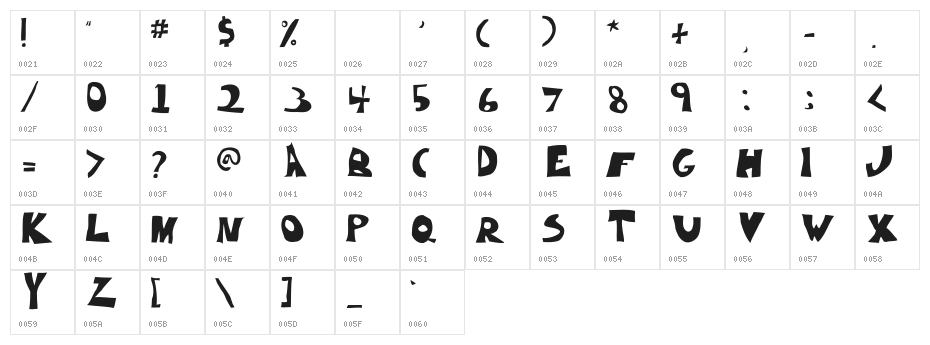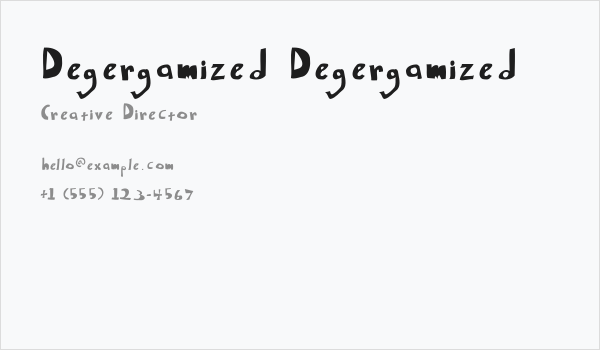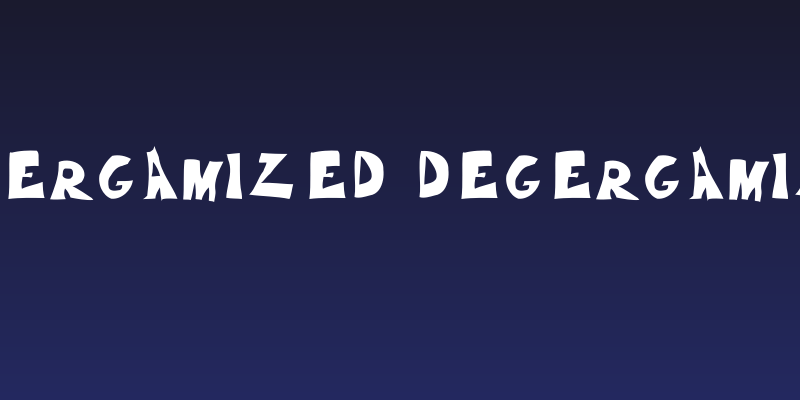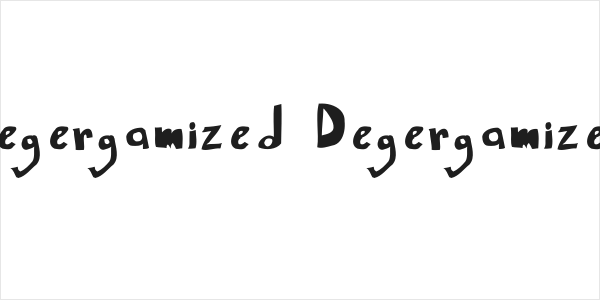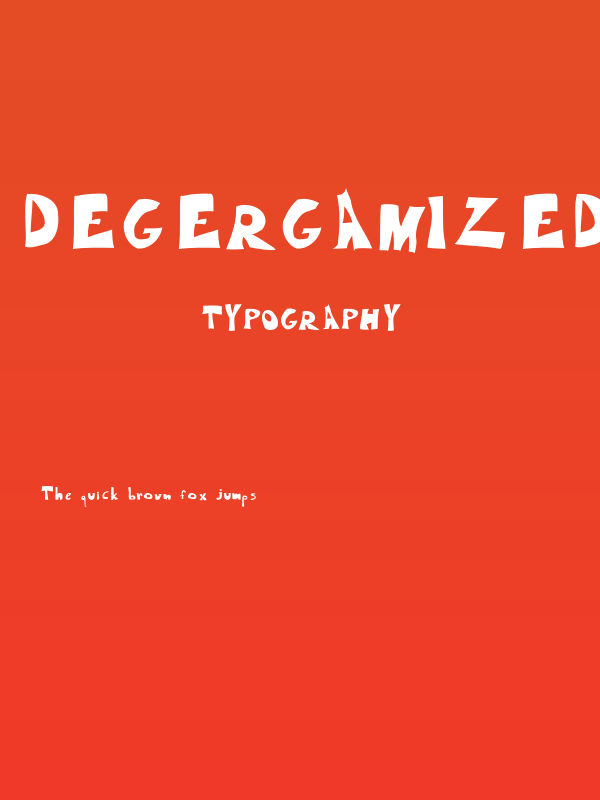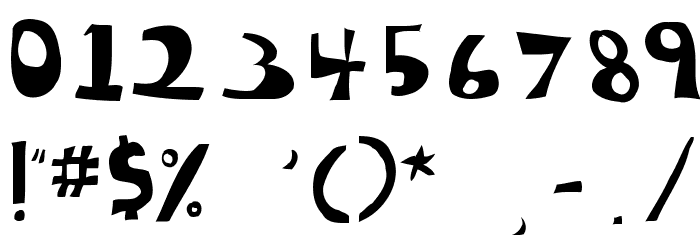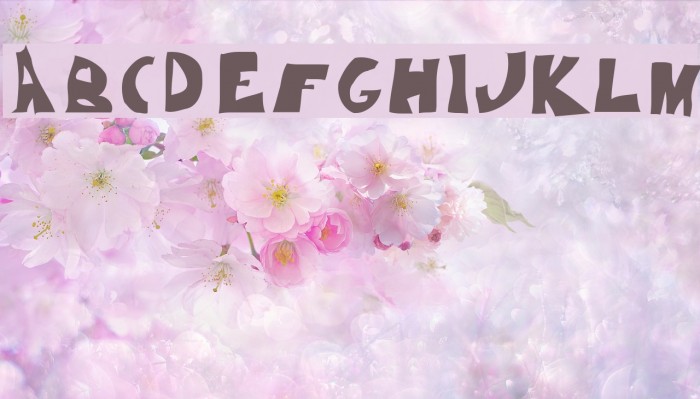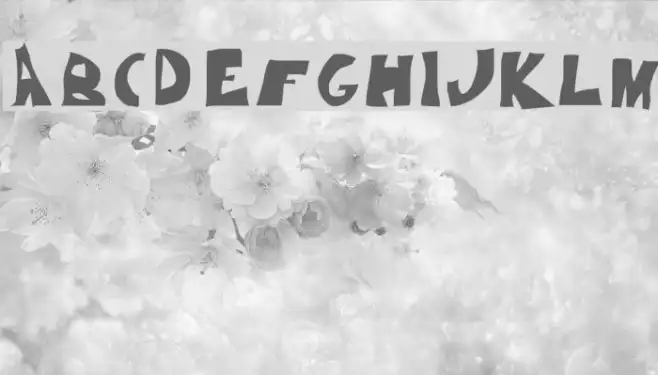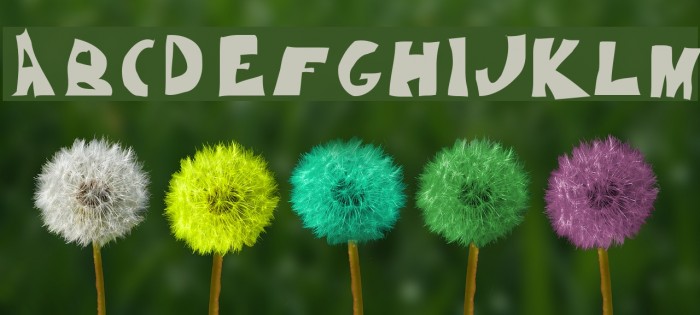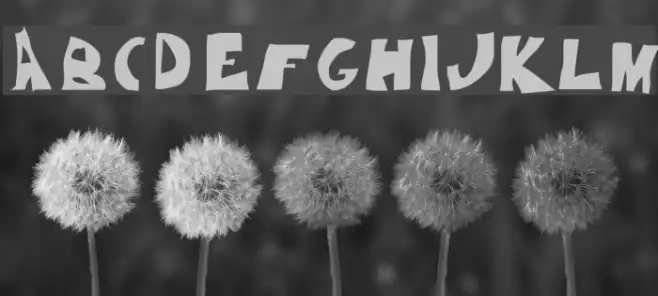
Degergamized Font
Degergamized Description
This font features a playful and whimsical design with irregular, bold strokes and a hand-drawn appearance. The characters are uniquely shaped, with varying heights and widths, giving it a dynamic and lively feel. The uppercase letters are bold and prominent, while the lowercase letters maintain a consistent style, adding to the overall quirky aesthetic. Numbers and special characters follow the same playful theme, making this font ideal for creative and informal projects. The uneven baseline and varied character sizes contribute to its distinctive and eye-catching look.
| Overall Style | Whimsical |
| Proposed Projects | Ideal for children's books, comic strips, playful branding, and creative posters. |